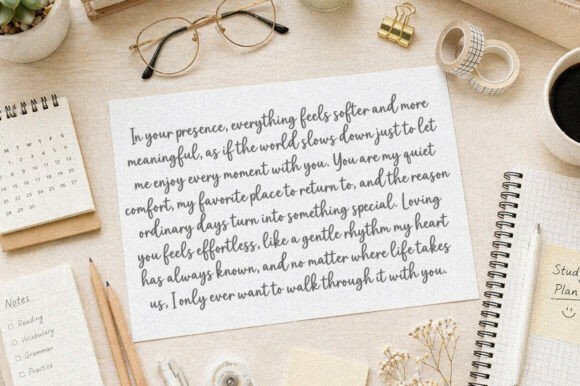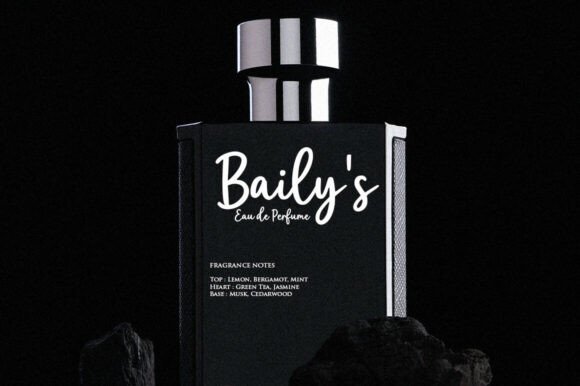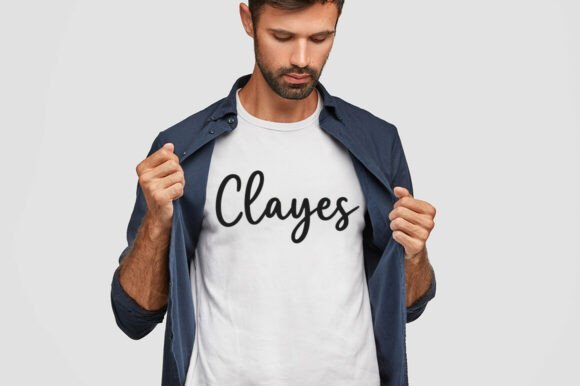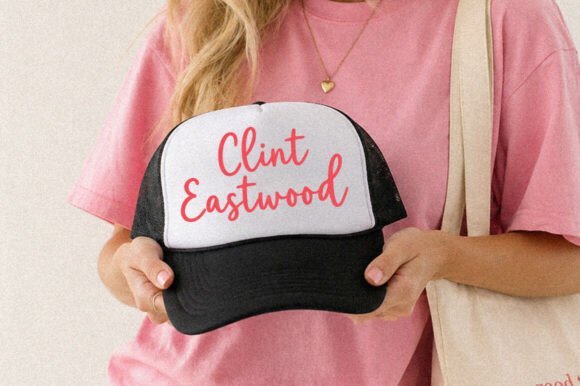
Honeymoon Font
Honeymoon is a semi-monoline script font that captures a chic, romantic, and effortlessly stylish feel. Designed with graceful strokes and subtle handcrafted nuances, this font brings a soft elegance while maintaining a modern and playful personality. Its balanced curves and smooth flow create a natural handwritten look, enhanced with delicate imperfections that add warmth and authenticity.